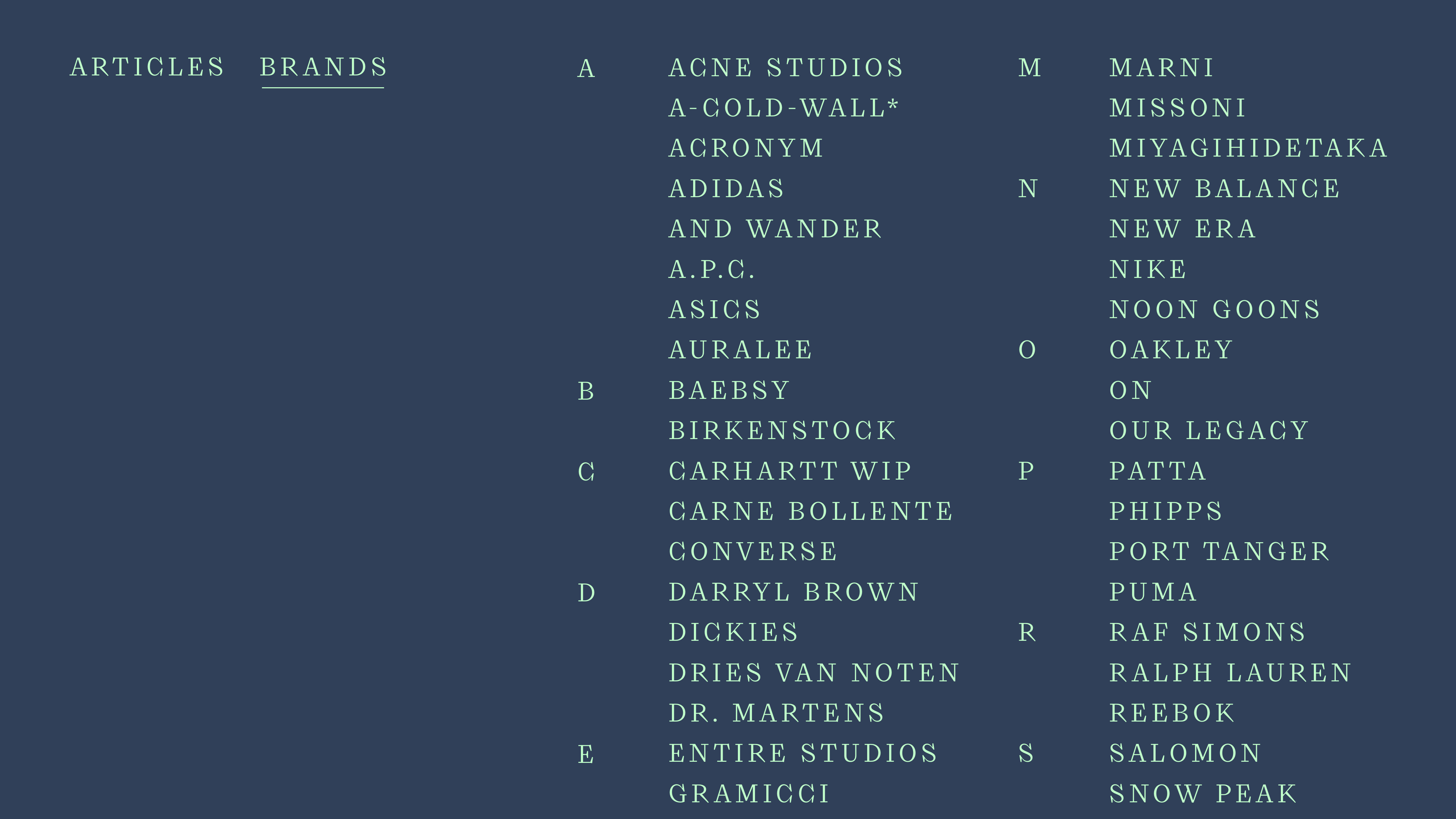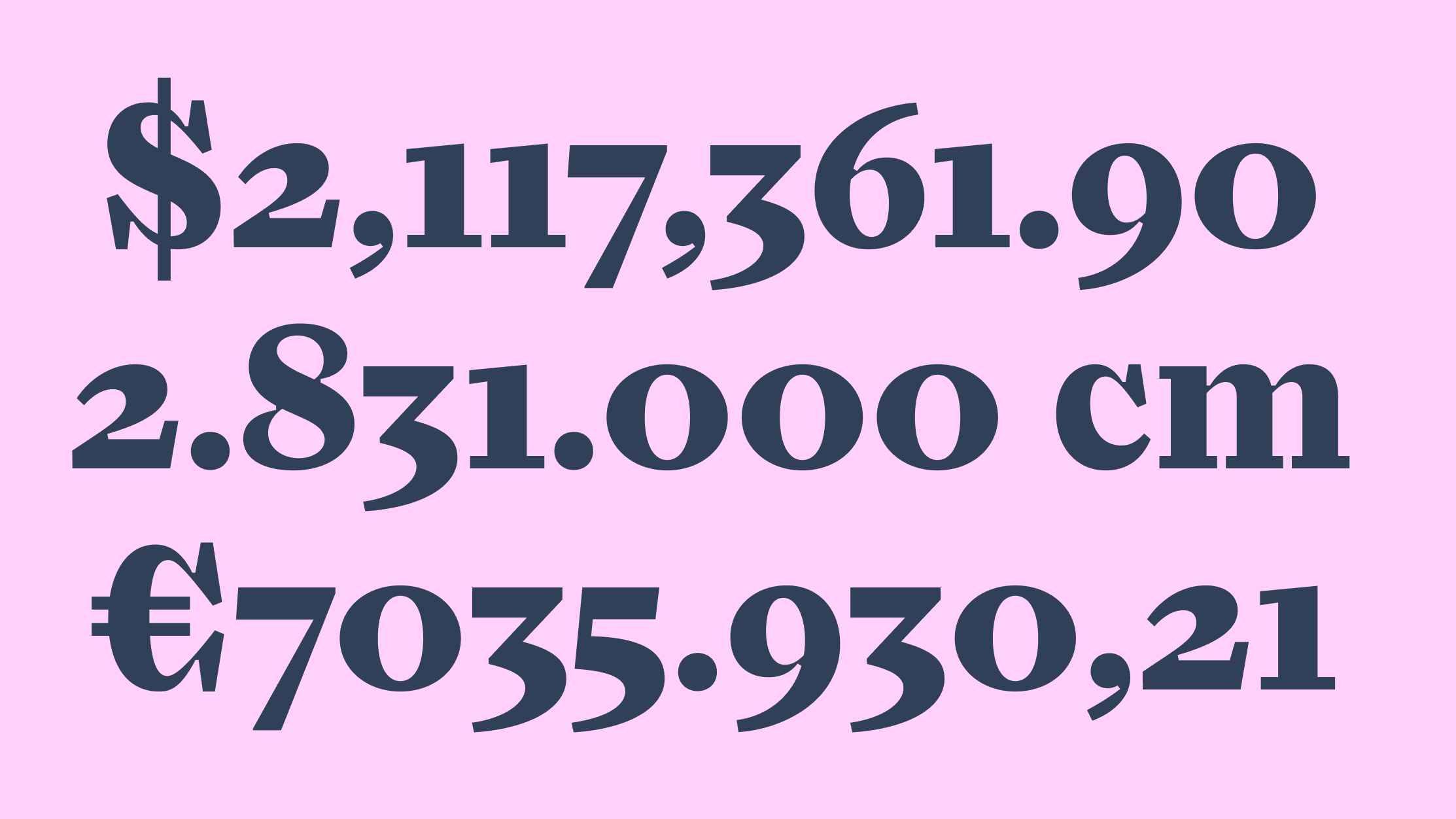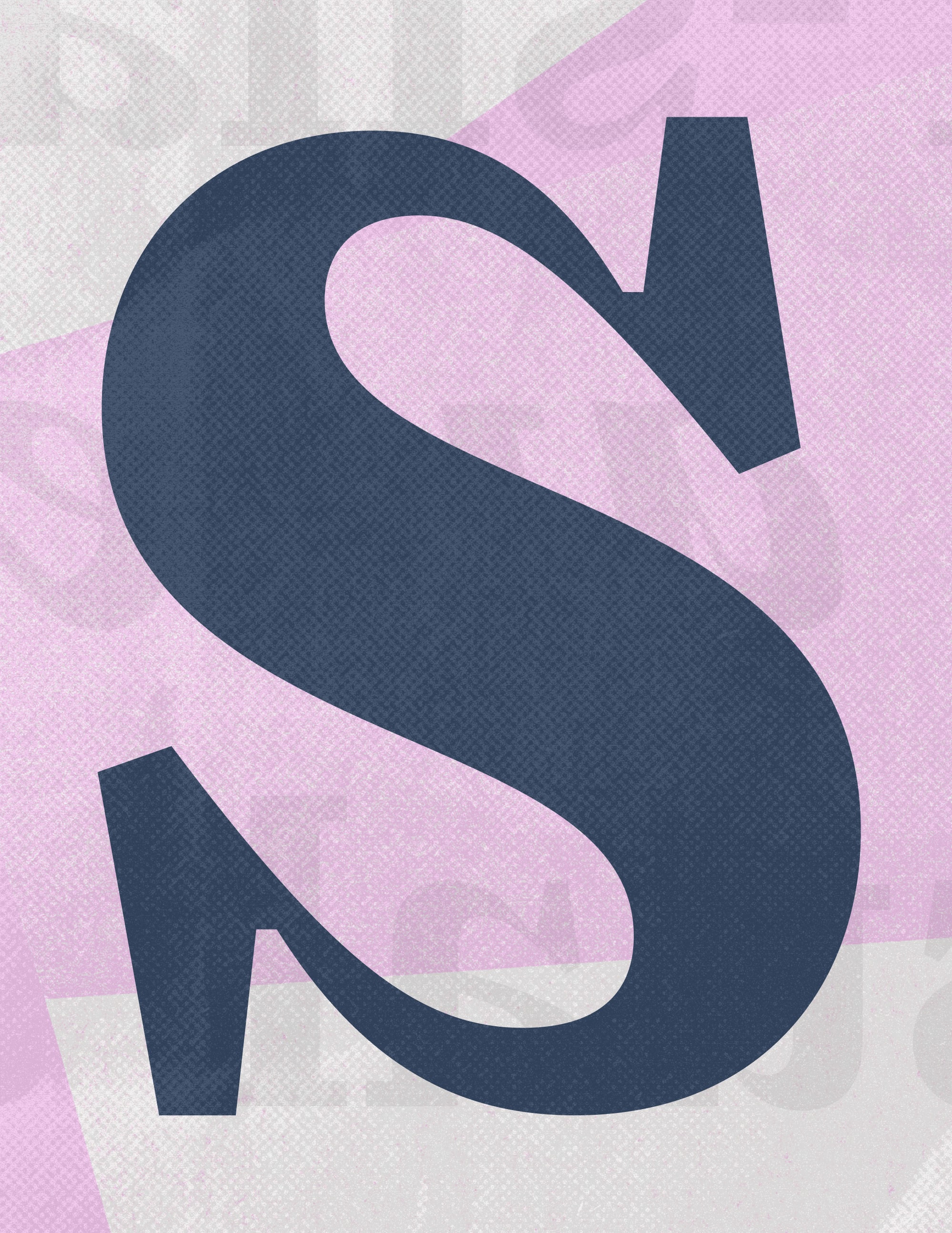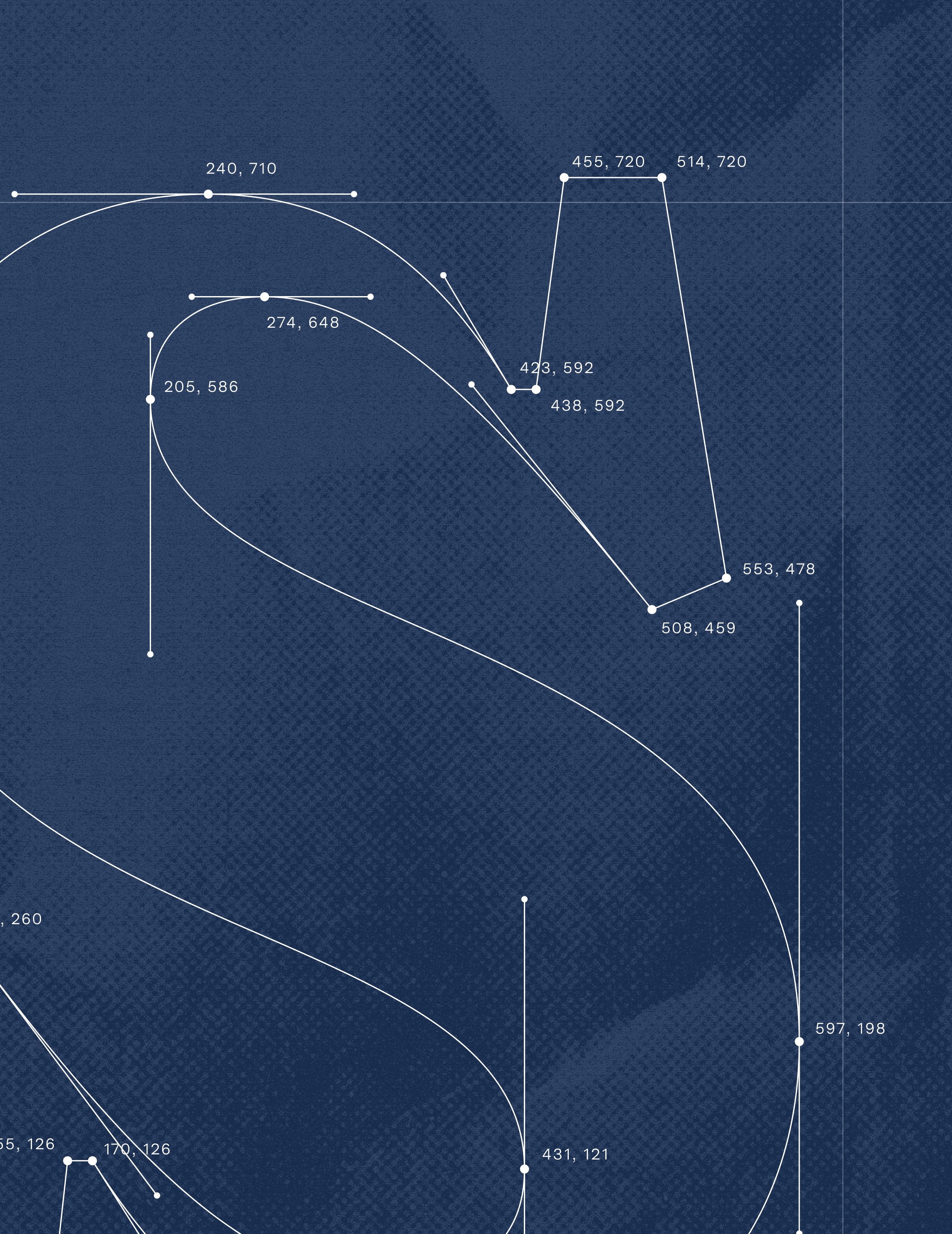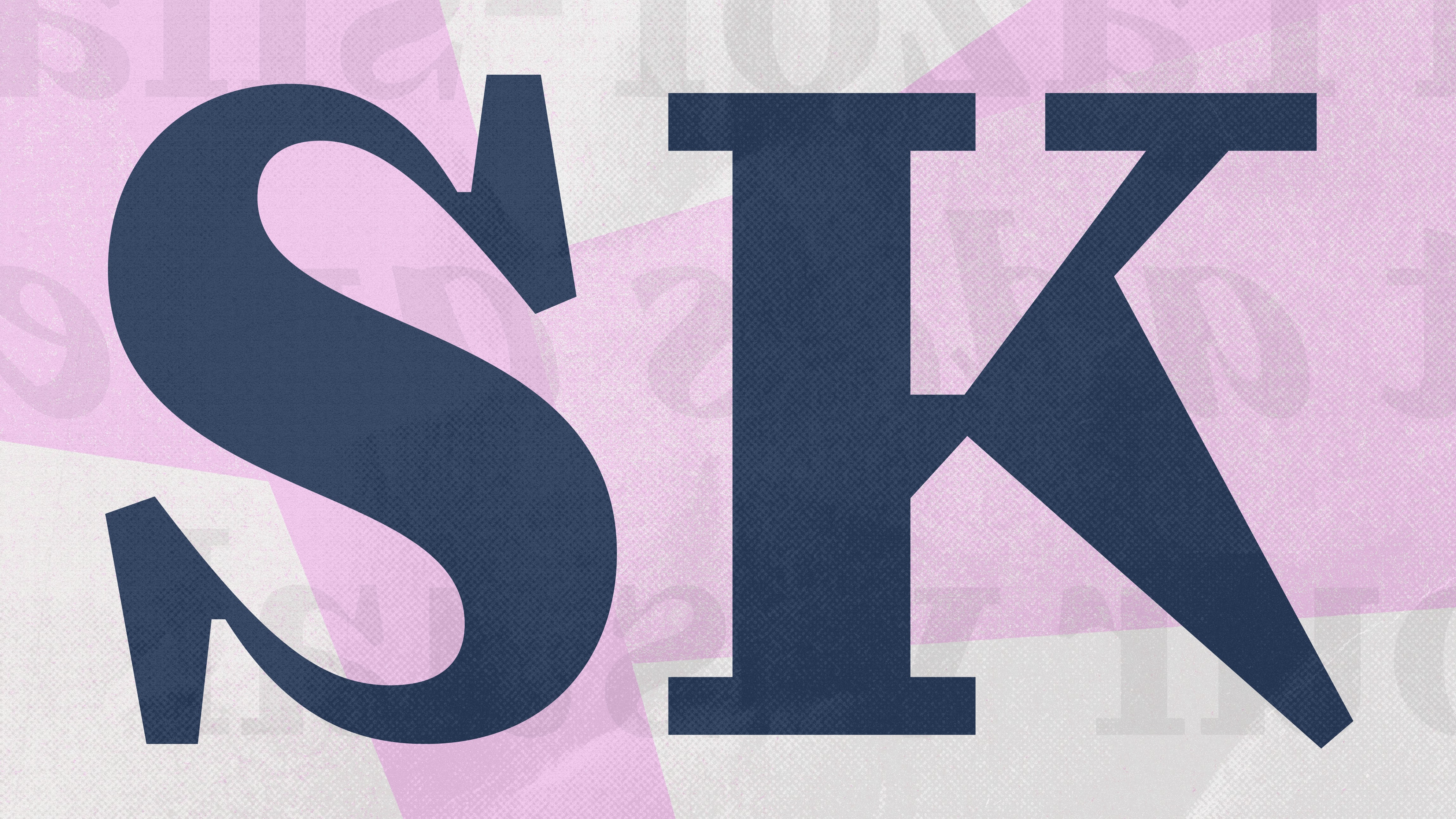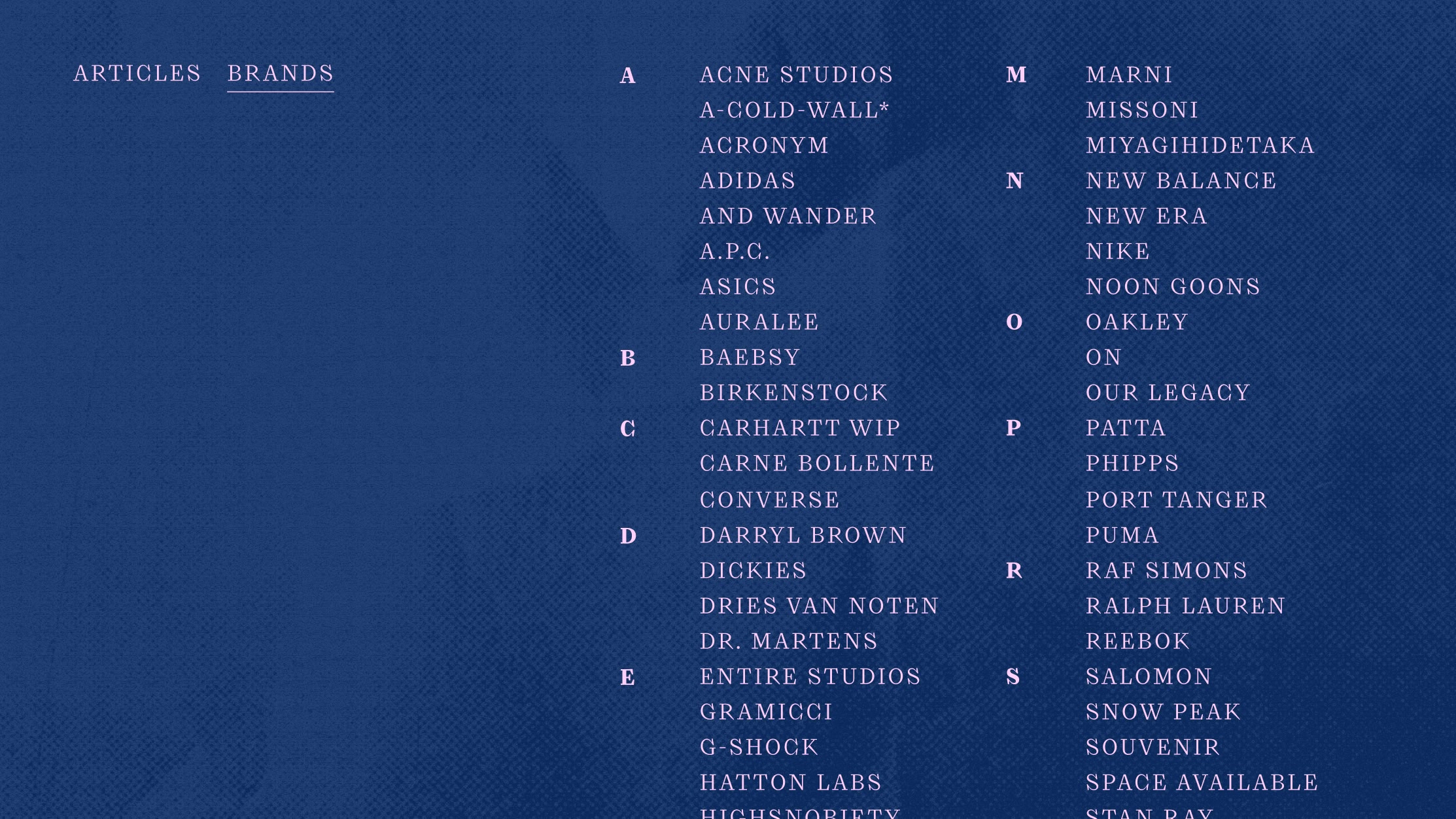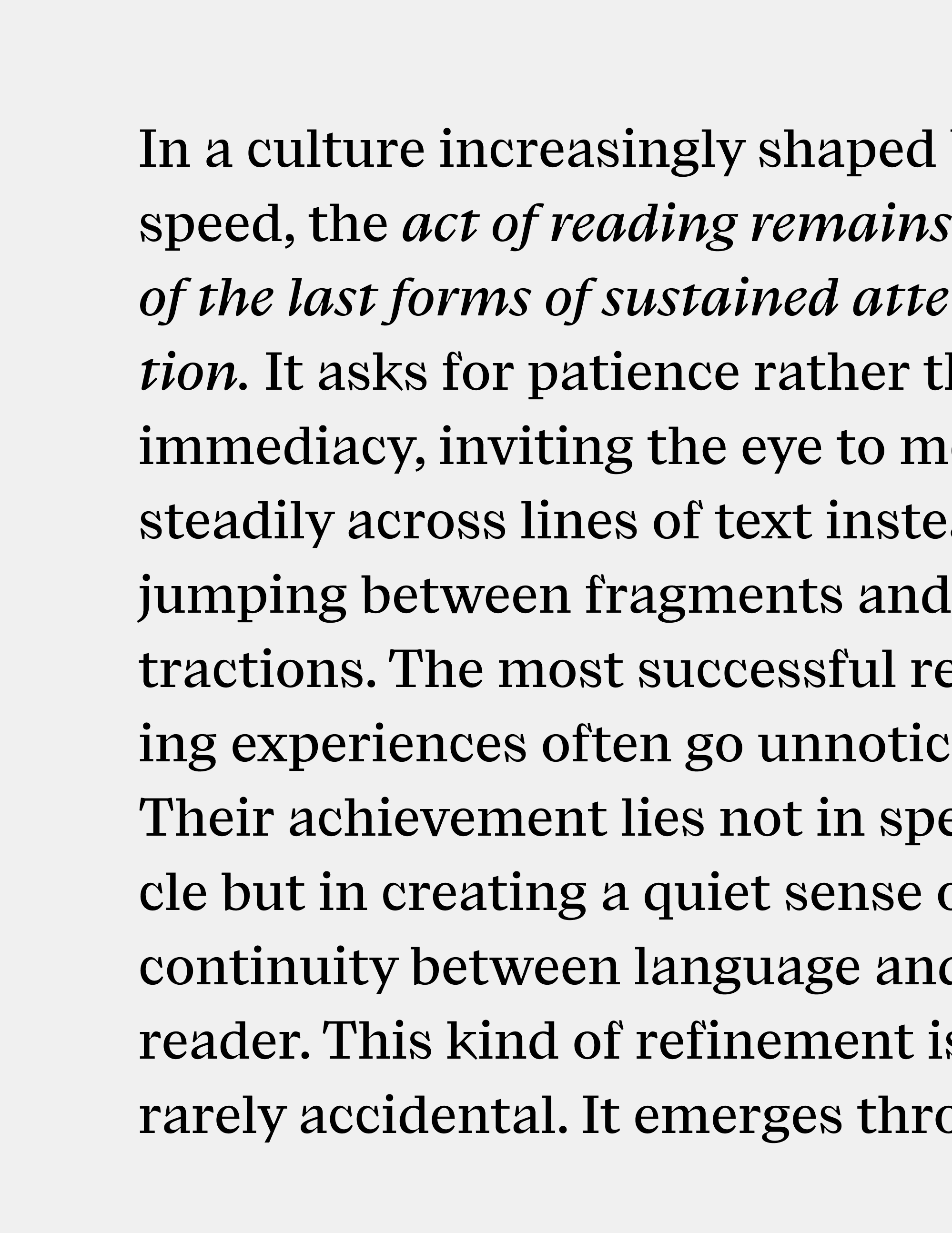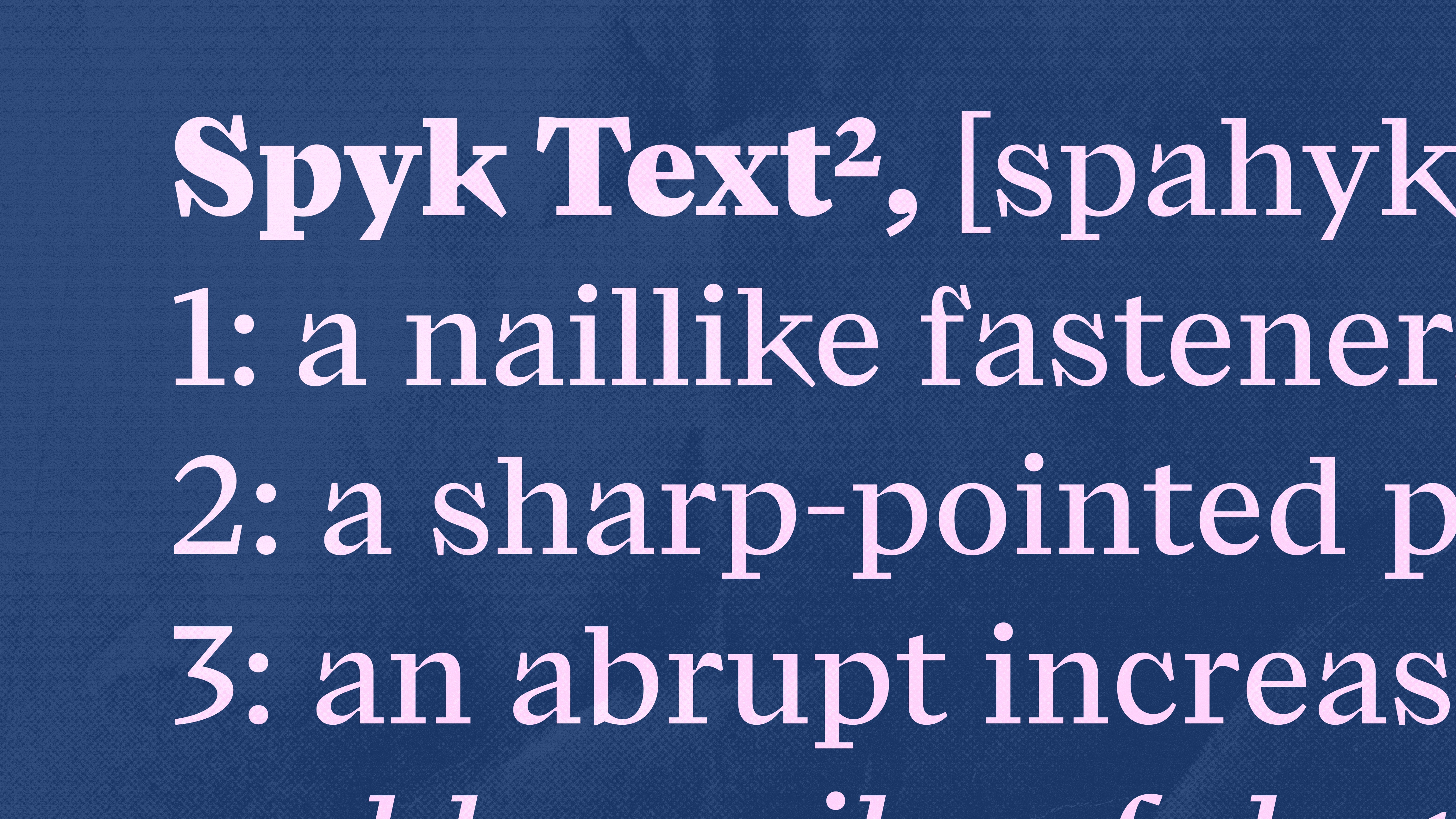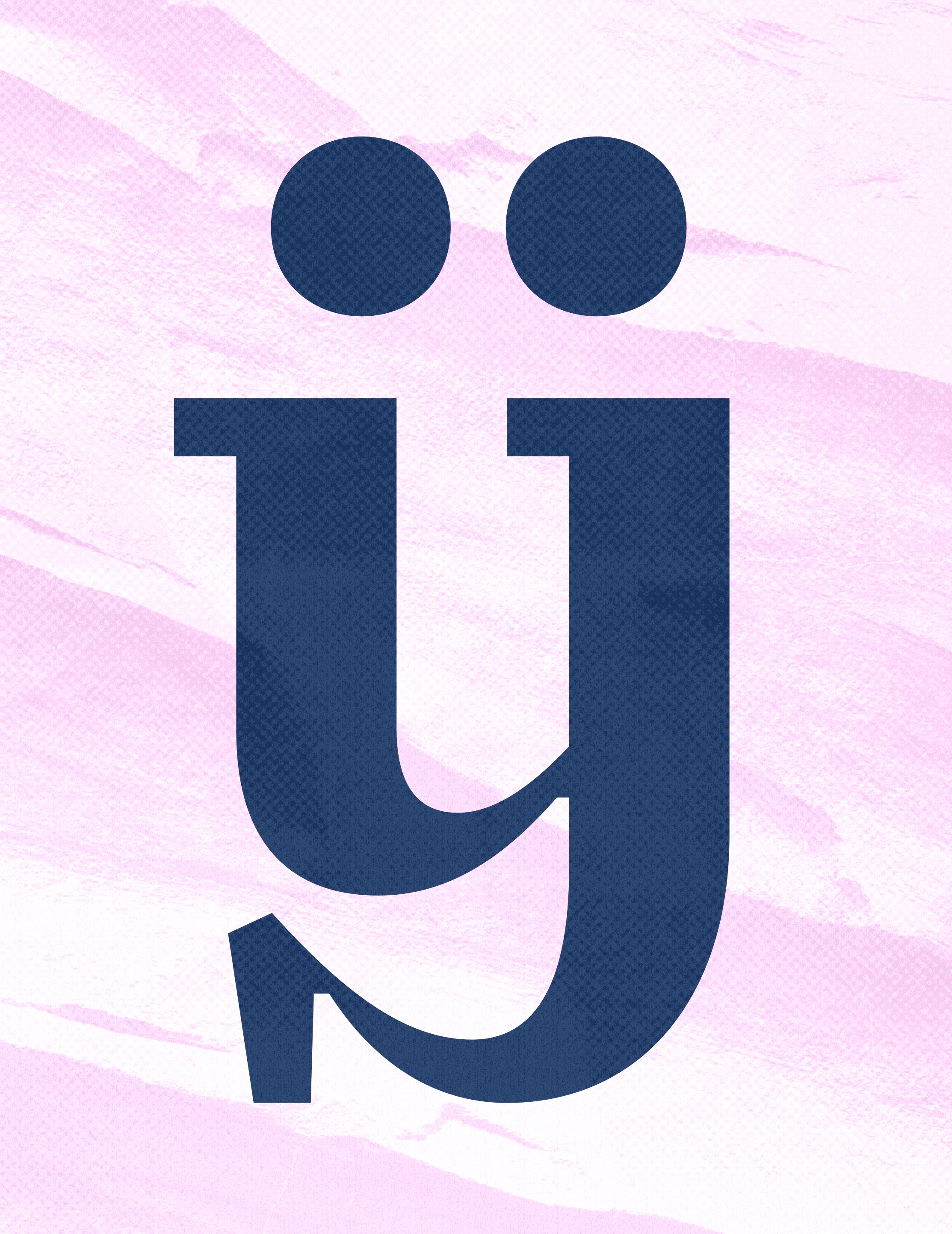
Spyk Text
Spyk Text combines sharp details, sculpted forms, and modern proportions. Reduced contrast supports extended reading while preserving the design’s distinctive tension and expressive character. Also available as Spyk Display.